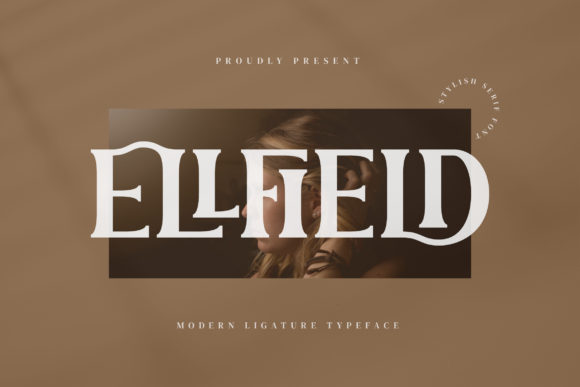
In a world saturated with monotony, dare to be different with Ellfield Font, the serif font that exudes audacity and individuality. Its bold strokes and thick letters command attention, leaving an indelible mark on your creative endeavors. With its PUA encoding, unleash your imagination and effortlessly incorporate glyphs and swashes into your designs, transforming them into captivating masterpieces.
Embark on a typographic journey where Ellfield's modern aesthetic harmoniously blends with its classic serif roots. Let your imagination soar as you witness the seamless fusion of tradition and innovation, crafting designs that resonate with timeless elegance and contemporary flair.
Elevate your creative resume to new heights with Ellfield Font. Its inherent boldness lends an air of confidence and professionalism, ensuring your qualifications shine through. Craft a resume that stands out from the crowd, capturing the attention of potential employers and leaving a lasting impression.
Unleash your creativity and let Ellfield Font ignite your artistic spirit. Its versatility knows no bounds, adapting effortlessly to a myriad of design projects. From striking logos and eye-catching posters to captivating social media graphics and sophisticated branding materials, Ellfield Font is your trusted companion, transforming your visions into tangible realities.
Experience the transformative power of Ellfield Font and witness the remarkable impact it has on your creative pursuits. Its inherent charm and undeniable presence will captivate your audience, leaving them spellbound by the sheer brilliance of your designs. Embrace the extraordinary and make Ellfield Font your font of choice, propelling your creativity to unprecedented heights.